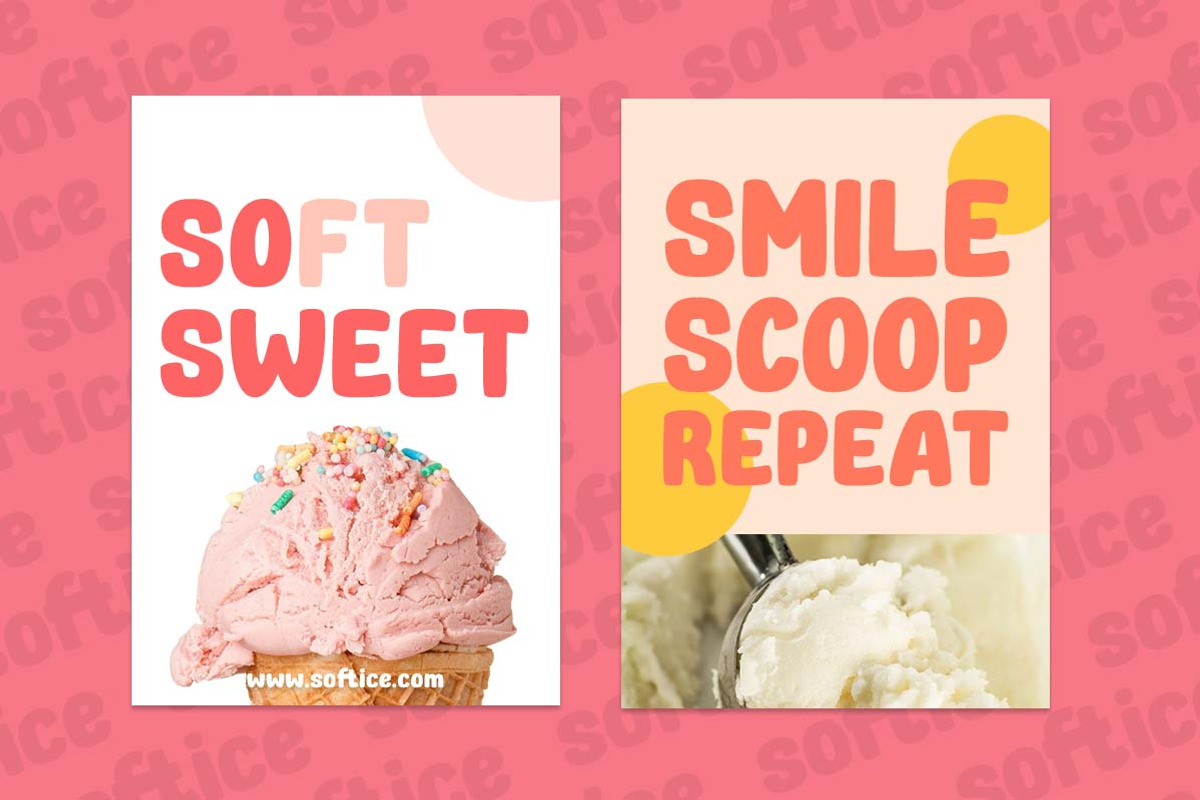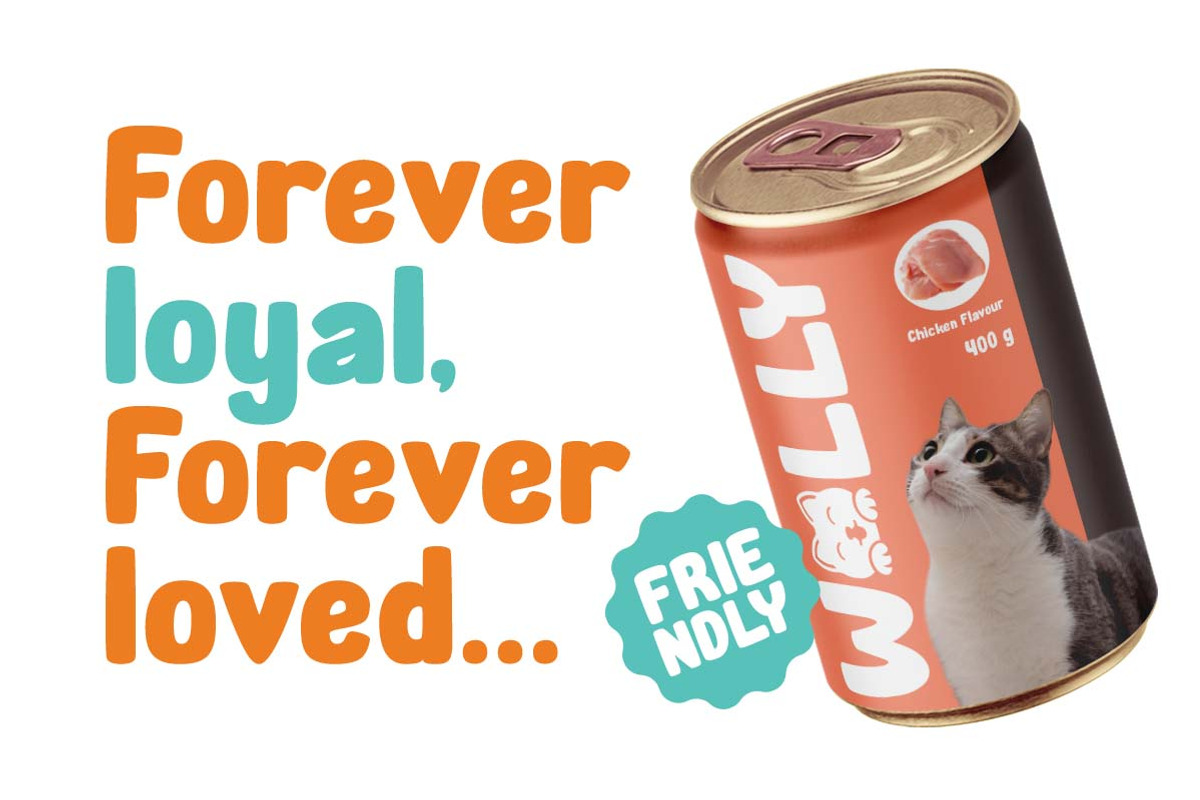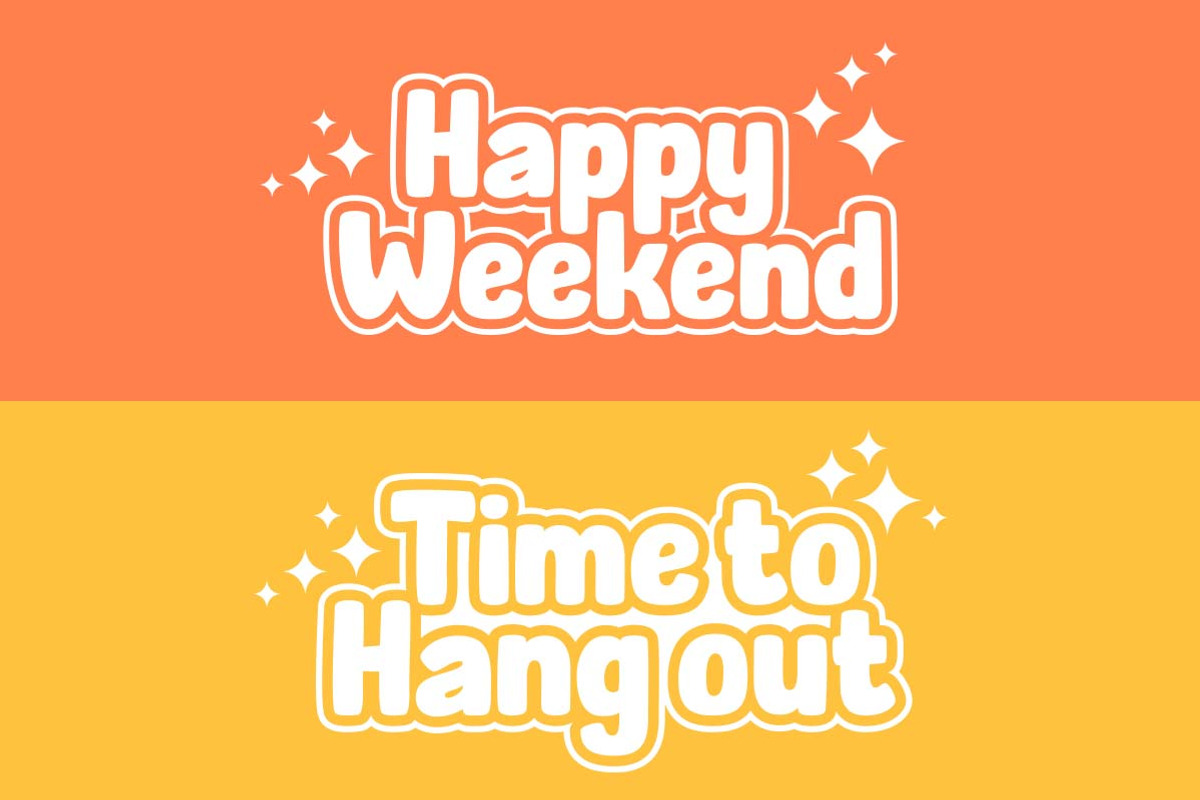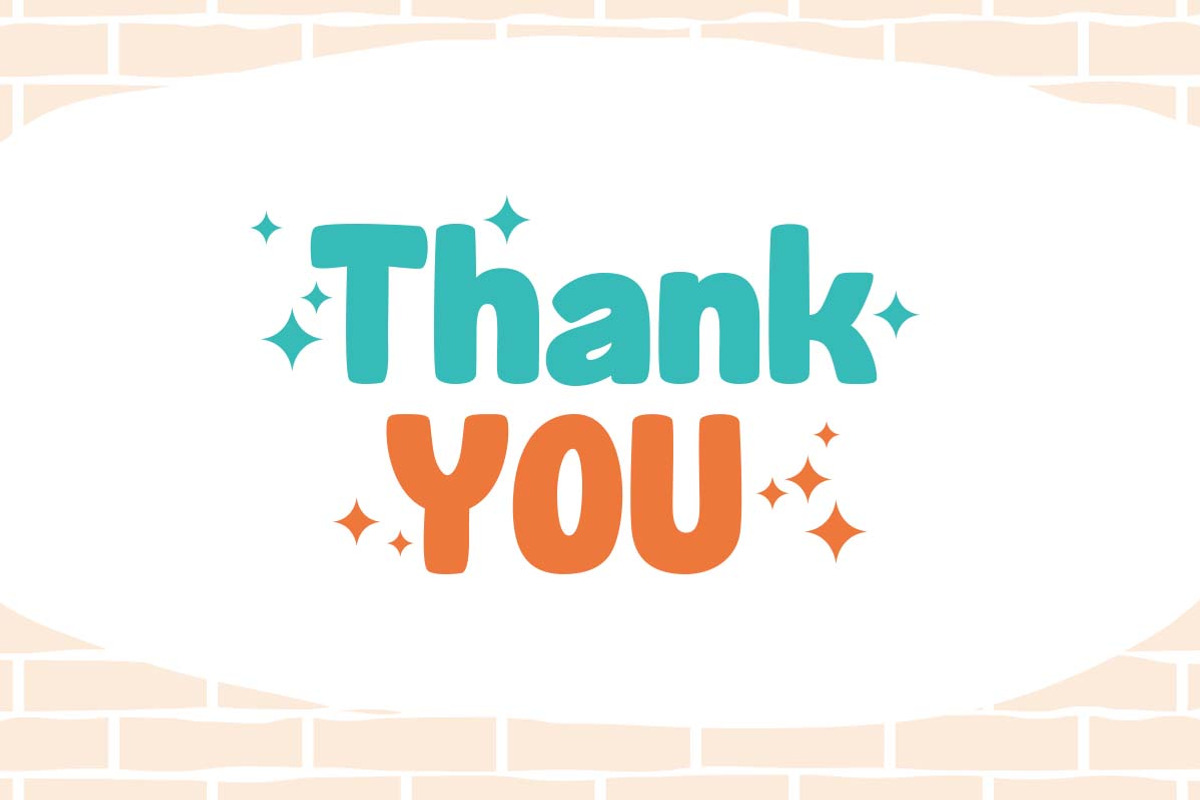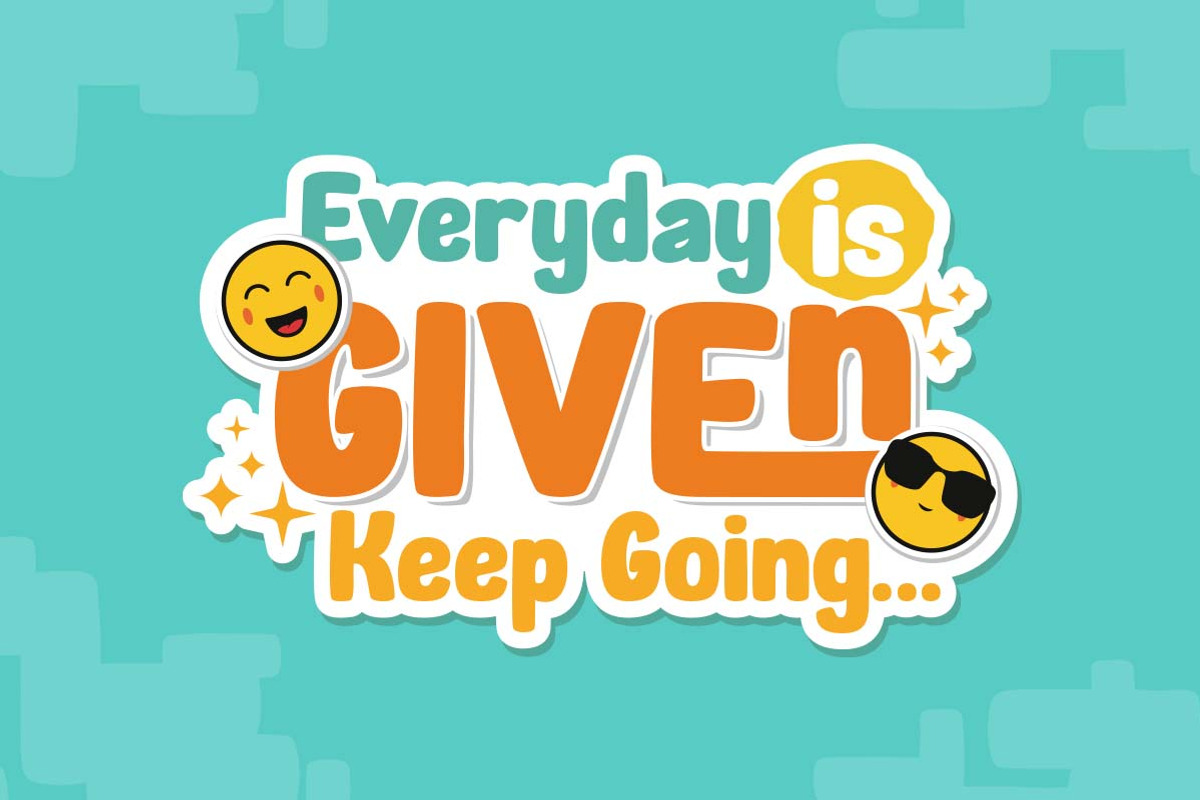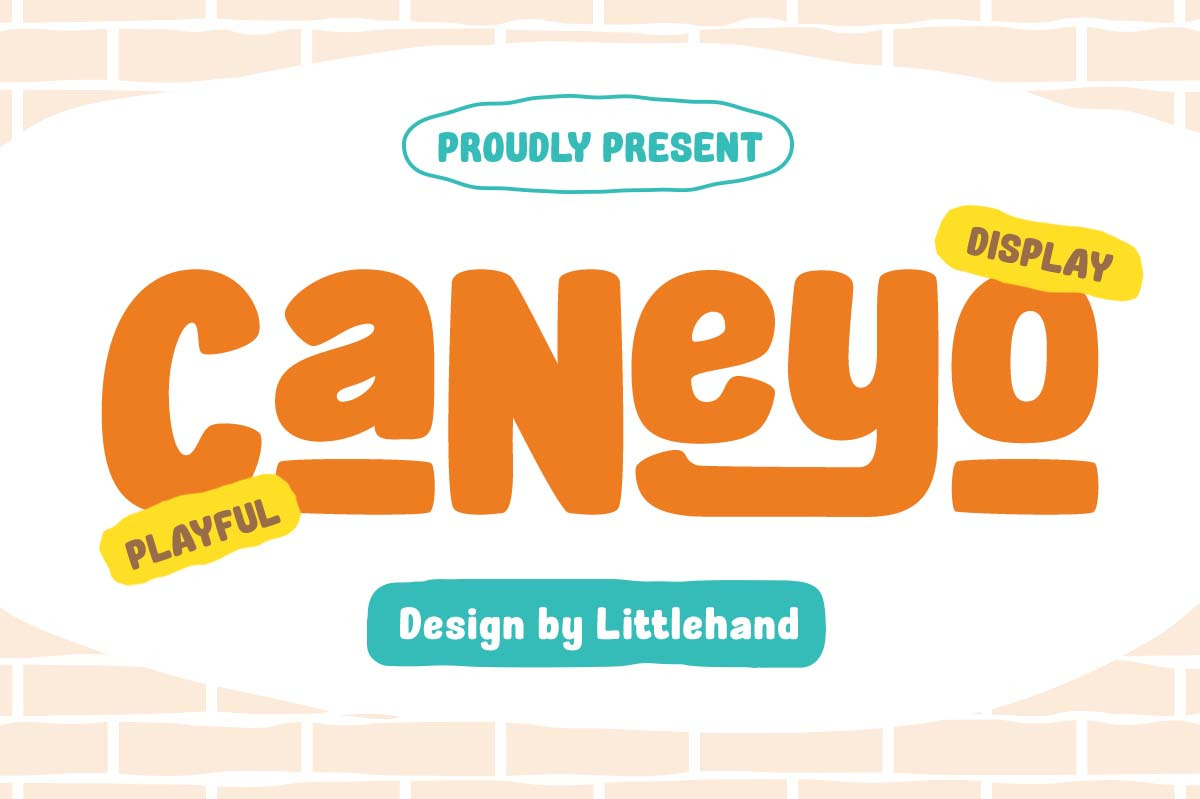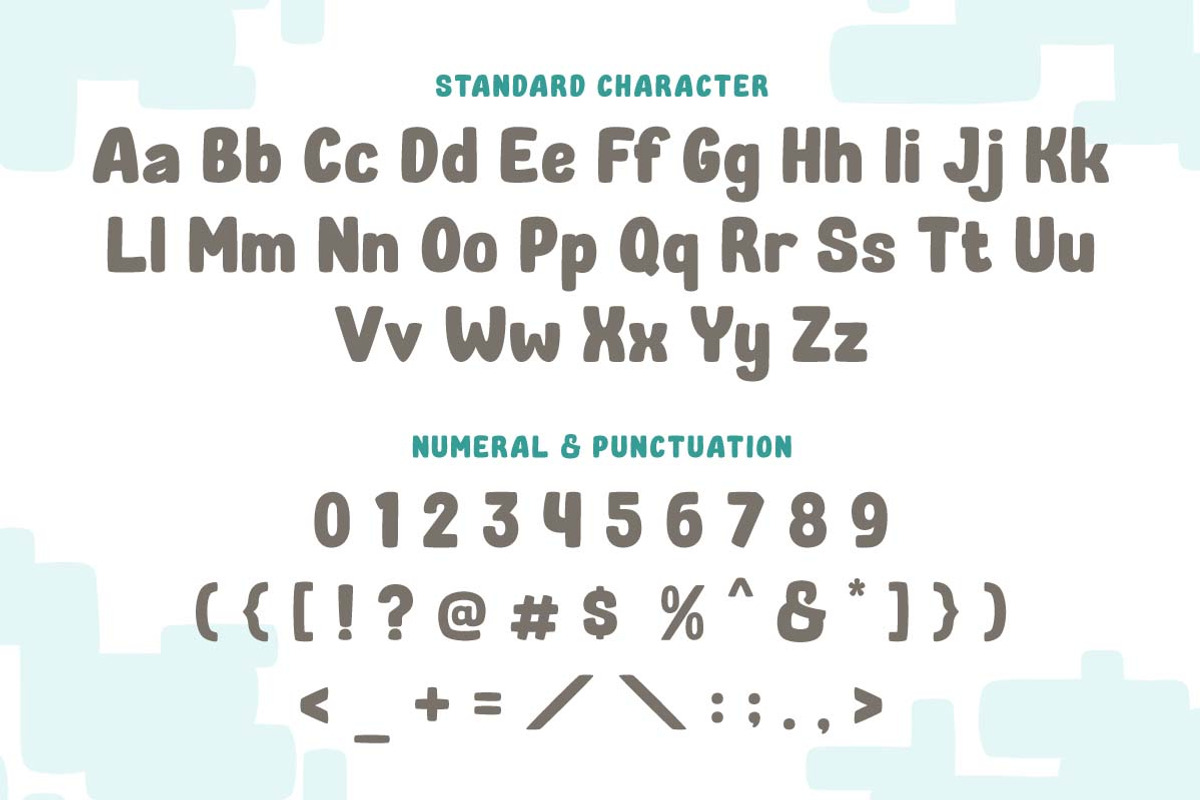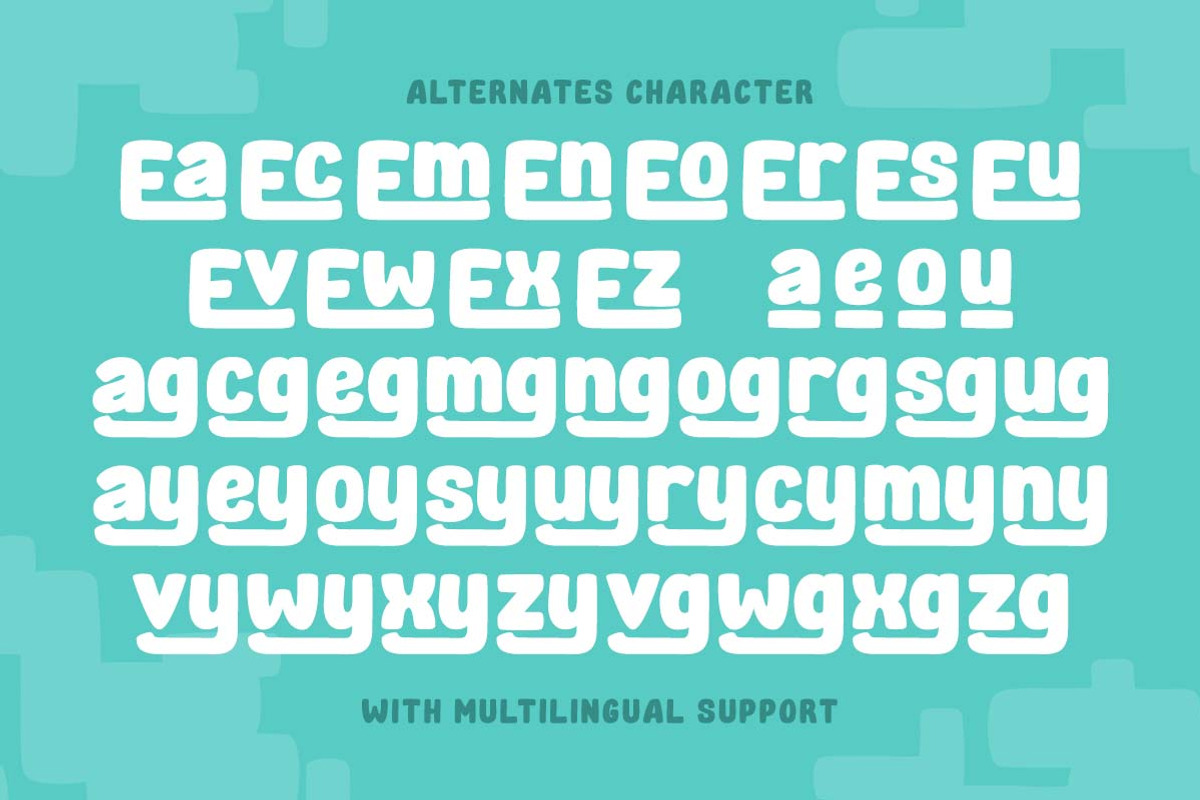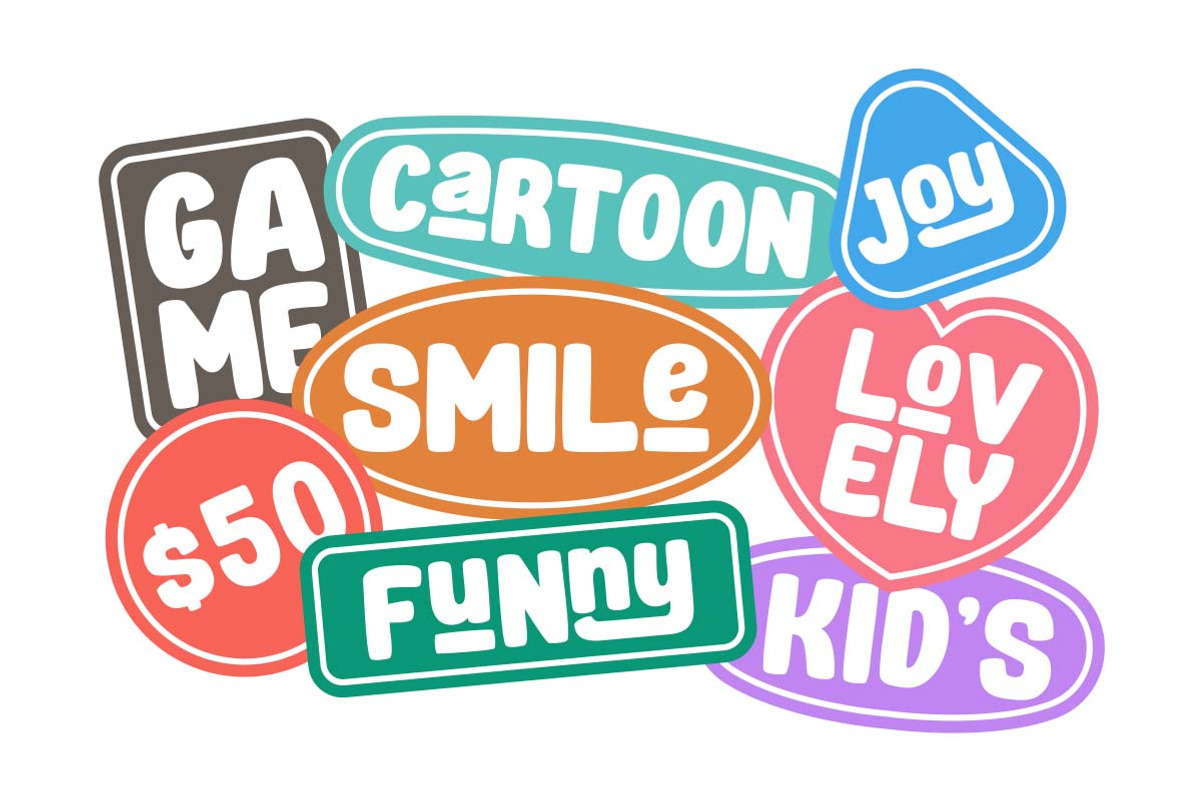
Caneyo Playful Display Font
Caneyo is a bold playful font that brings instant fun to the page. With chunky shapes, soft corners, and bouncy letterforms, it feels friendly, confident, and full of energy—like colorful cut-paper titles on a creative board. The thick strokes give strong visibility, while the rounded details keep everything warm and approachable. Caneyo works beautifully for eye-catching headlines, kids projects, posters, branding graphics, packaging titles, social media visuals, and any layout that needs a happy, standout voice with a modern pop twist.